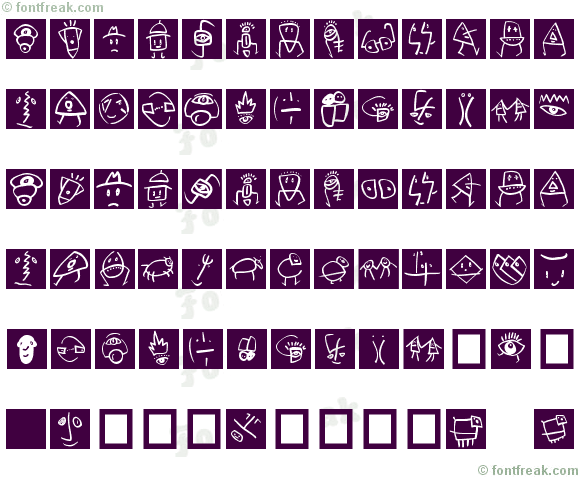
SketchBats invers
About SketchBats invers
SketchBats invers by Manfred Klein is a unique decorative dingbat font that offers a playful yet artistic touch. Released between 2002 and 2008, this freeware font features a whimsical collection of hand-drawn icons and sketches that are both engaging and expressive. The visual characteristics of SketchBats invers include a light stroke weight with minimal contrast, enhancing its casual, sketch-like appearance. The spacing between each icon is well-balanced, making it easy to integrate into various design projects without overwhelming the layout.
This font is ideal for a variety of use cases. Graphic designers can utilize SketchBats invers for creating vibrant wedding invitations that convey a sense of fun and creativity. Its playful nature also makes it perfect for children's book illustrations, where whimsical elements can enhance storytelling. Restaurant menus benefit from the lightheartedness of this font, adding charm to the overall dining experience. Additionally, it can be effectively used in social media graphics or promotional materials aimed at a youthful audience, capturing attention with its quirky style. Content creators looking to add an artistic flair to their projects will find this font particularly appealing.
The target audience for SketchBats invers includes graphic designers, small business owners, and content creators who seek to infuse their work with a distinctive character. The font stands out due to its unique combination of hand-drawn aesthetics and versatility, making it suitable for both professional and informal contexts. By choosing the SketchBats invers font free download, users can easily access a creative resource that brings a touch of whimsy to their designs, allowing for limitless possibilities in visual storytelling.